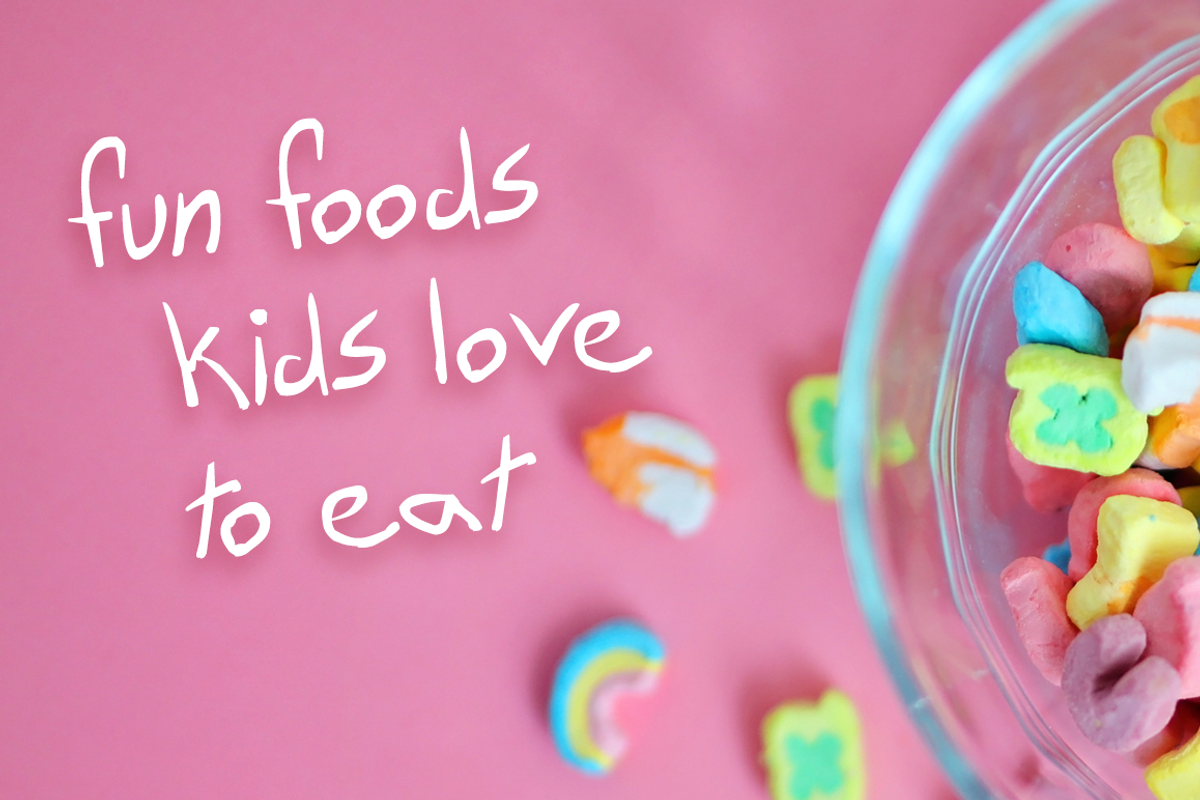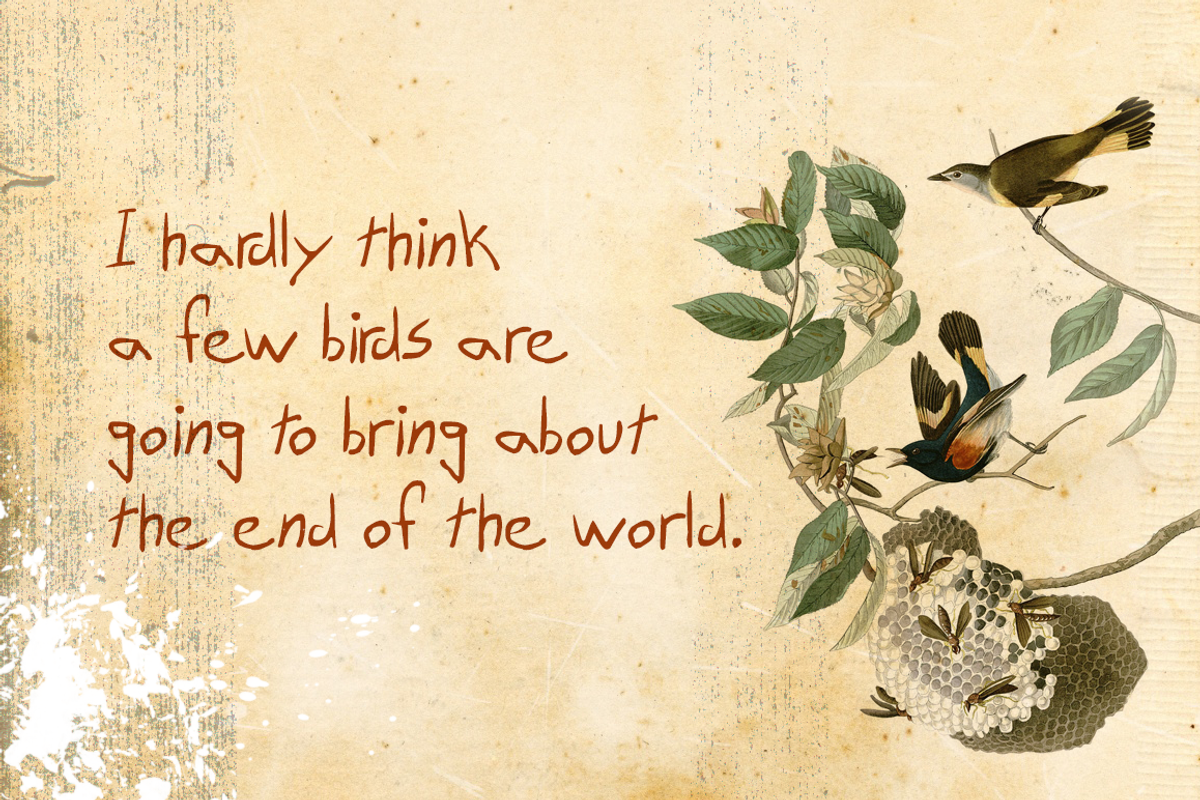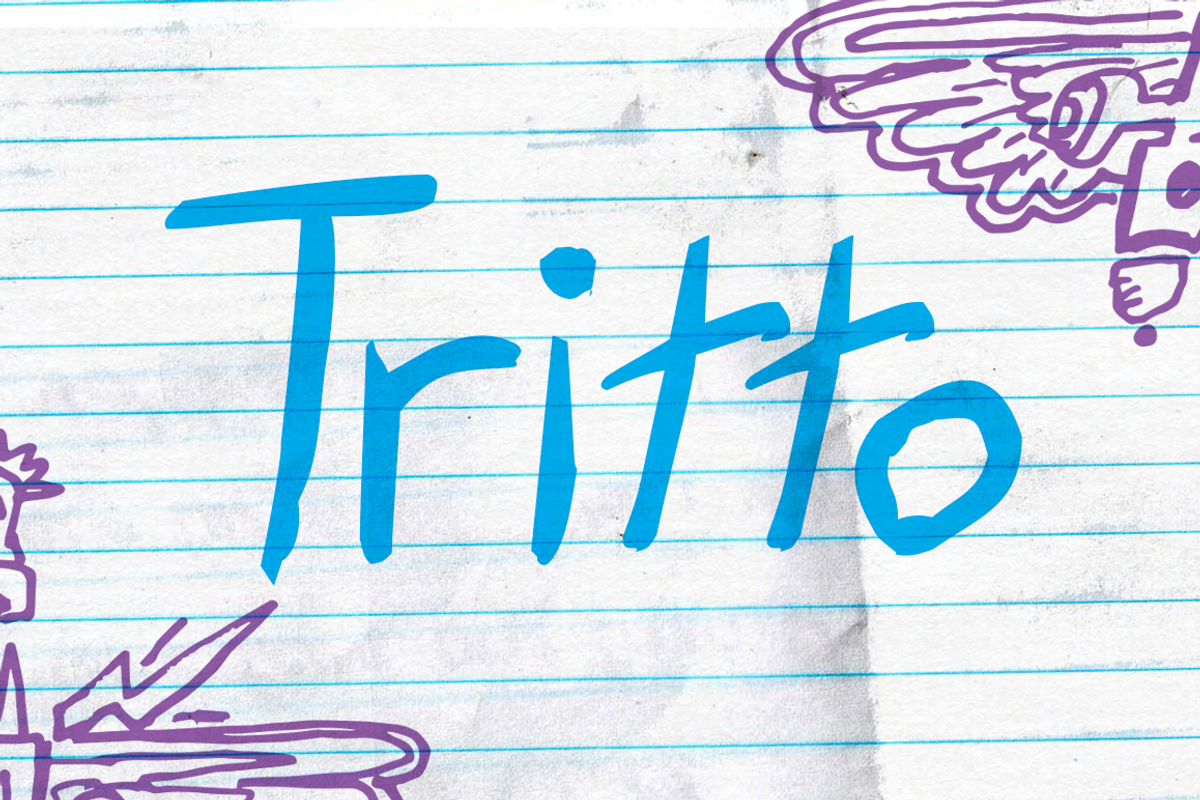
Tritto
Tritto is what happens after you give up a pencil and start using a mouse. It’s some wild handwriting that you definitely didn't learn in school. Child-like fun or punk rock attitude... unrefined and unapologetic.